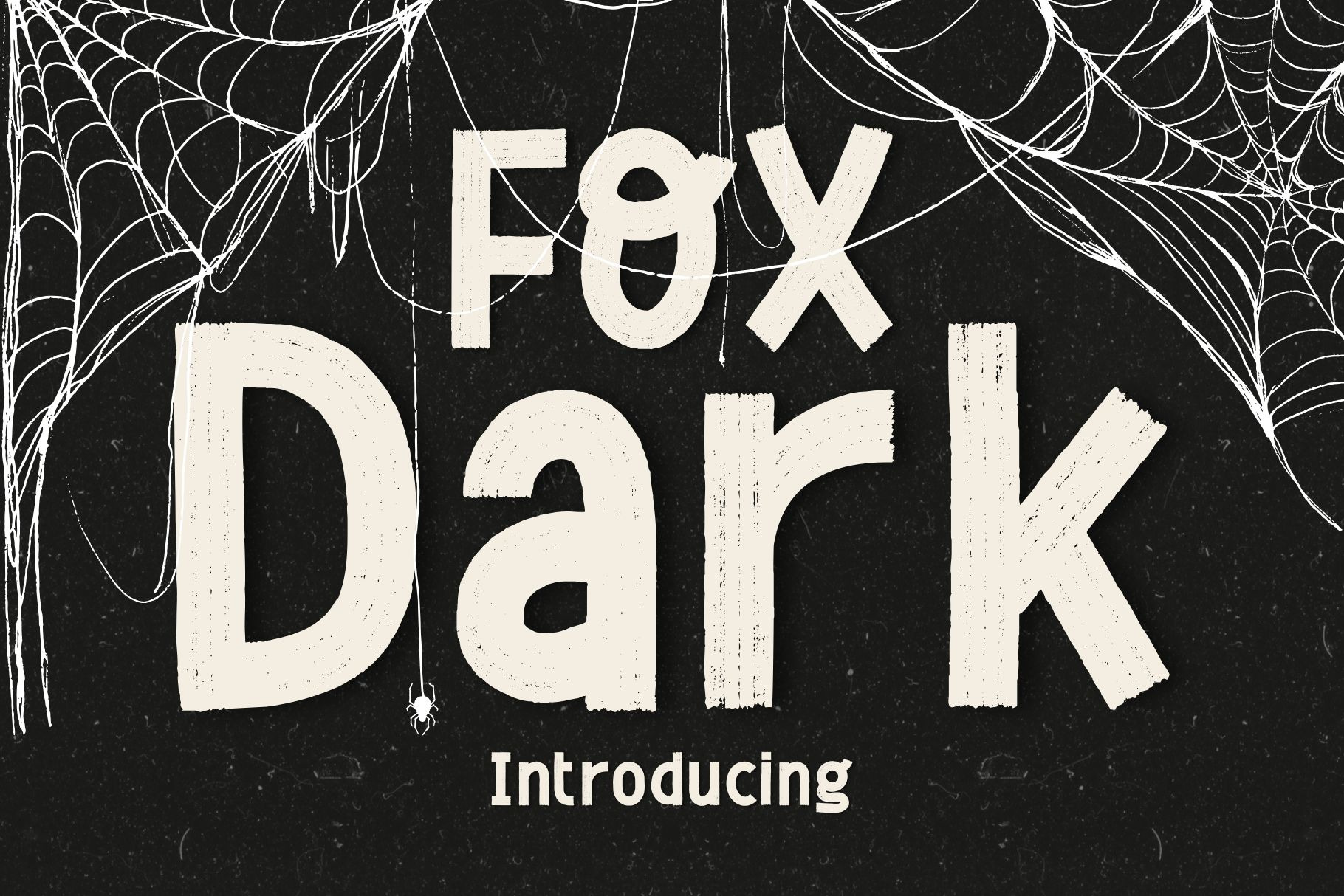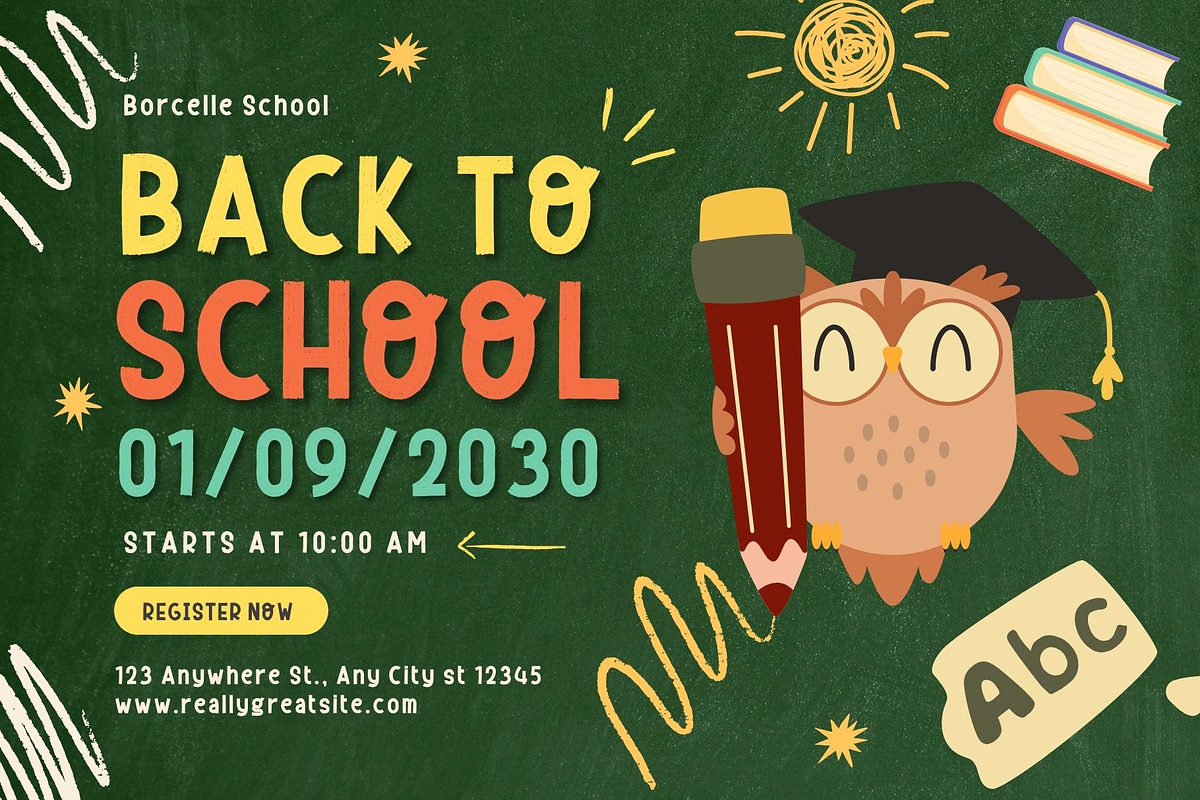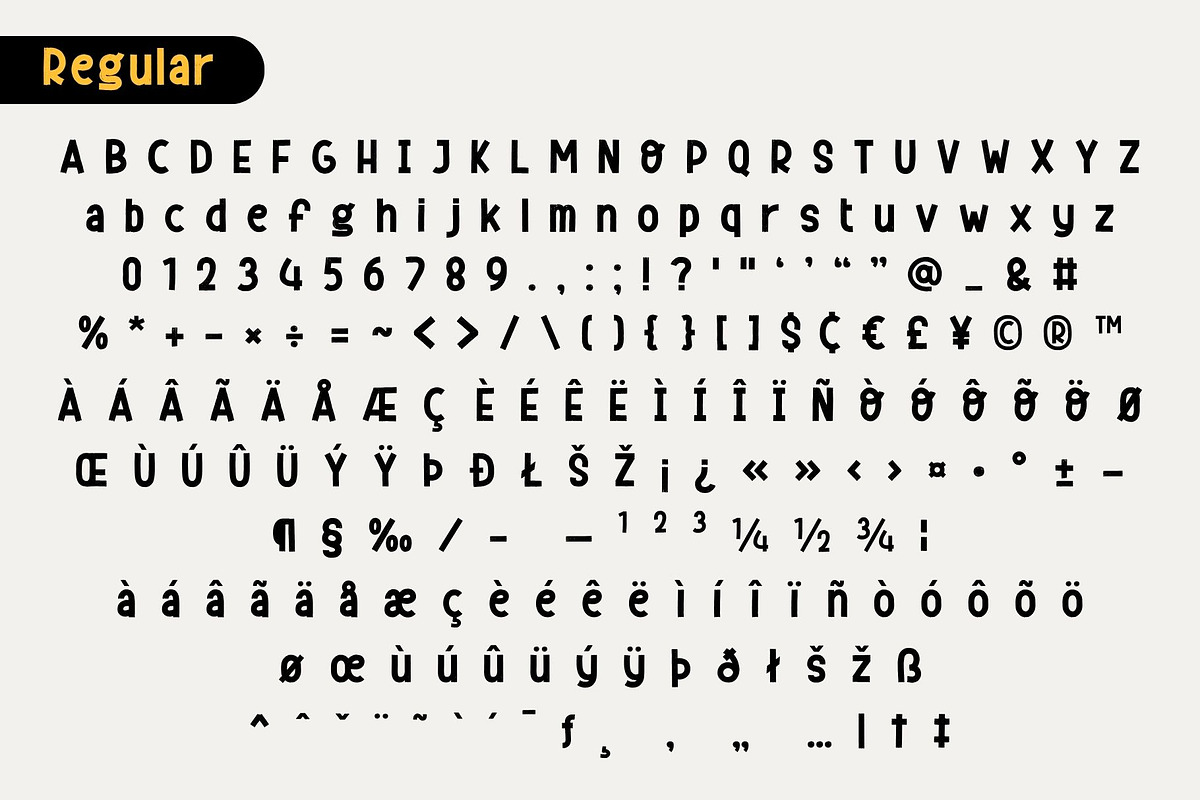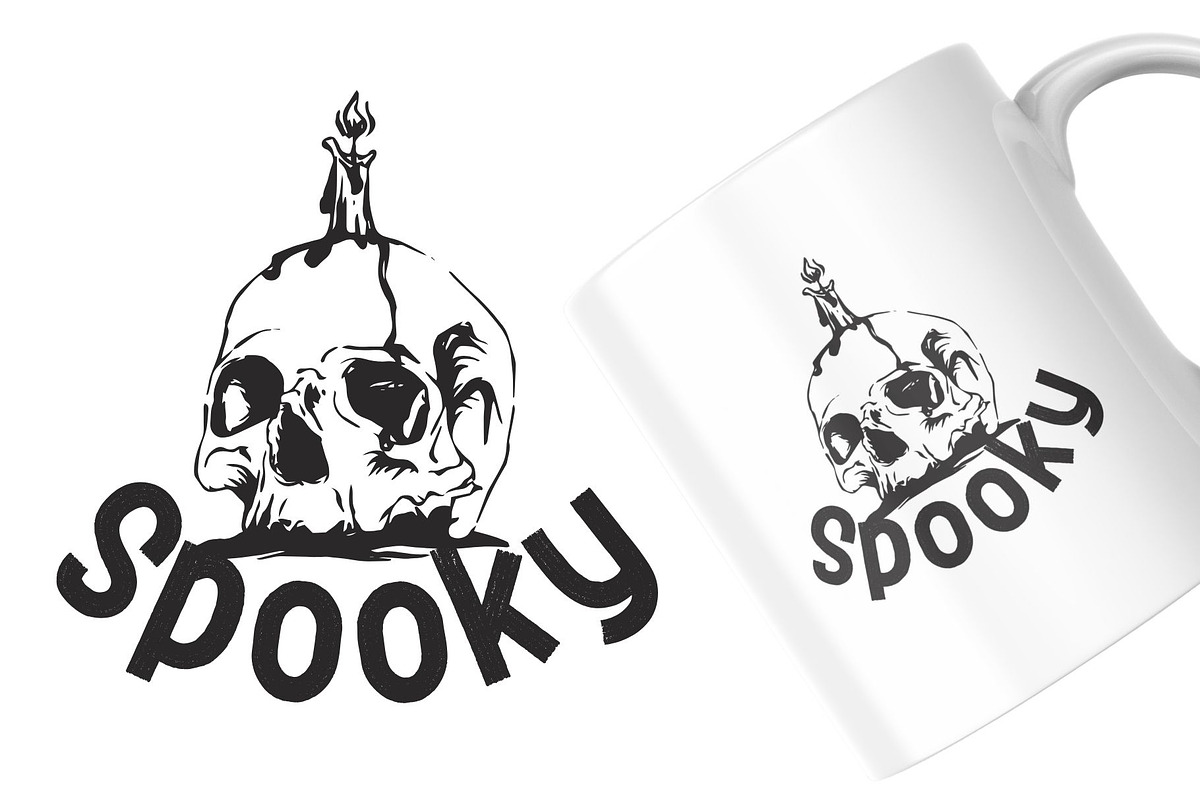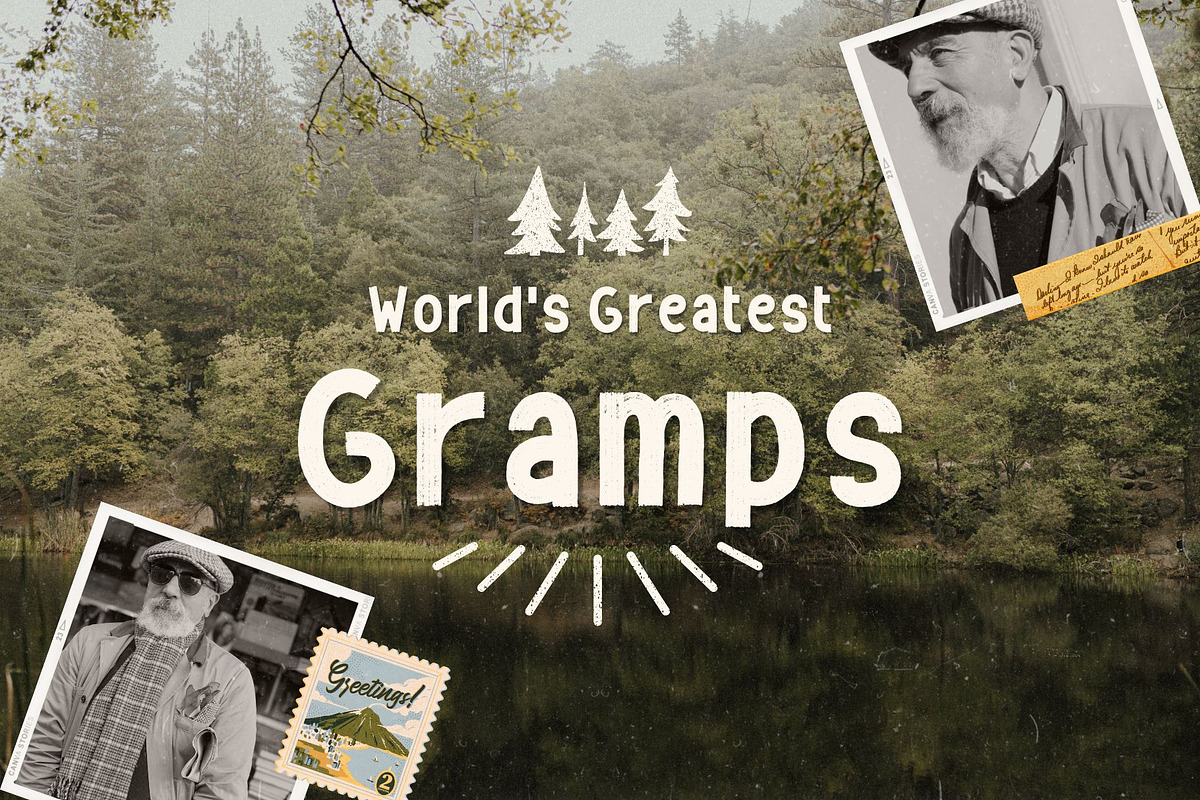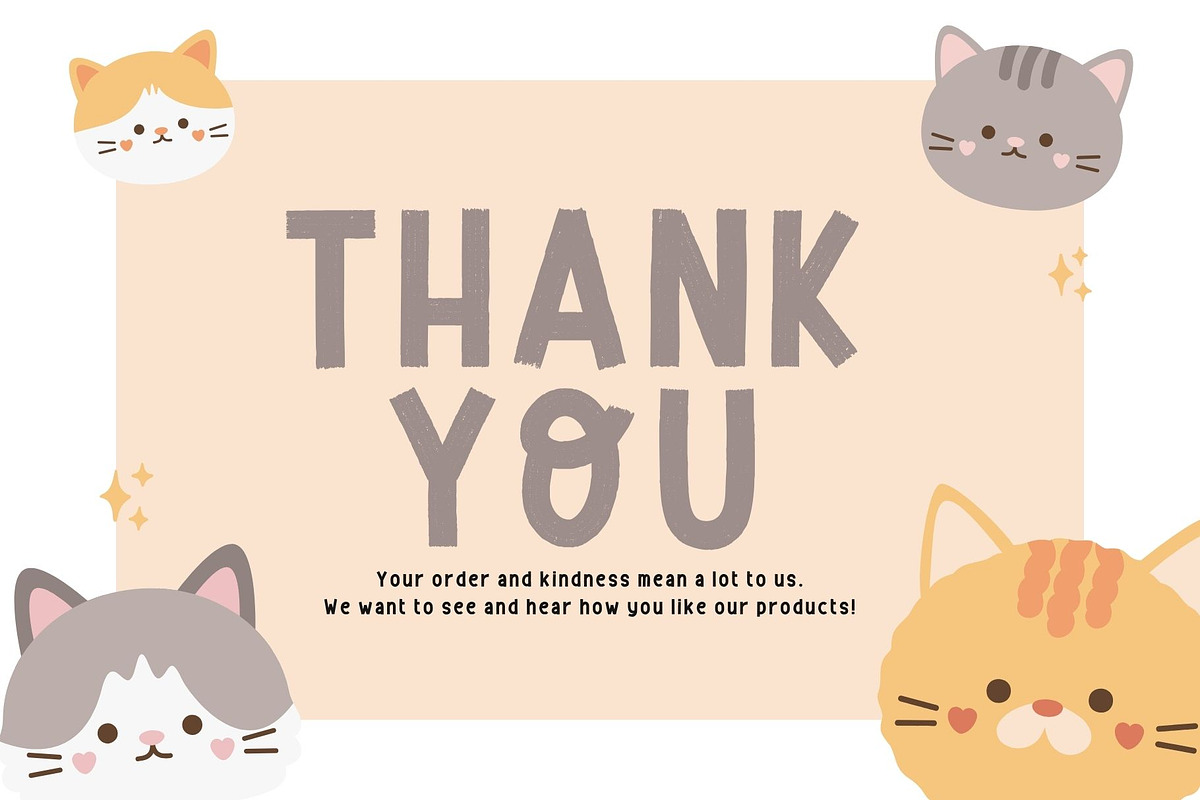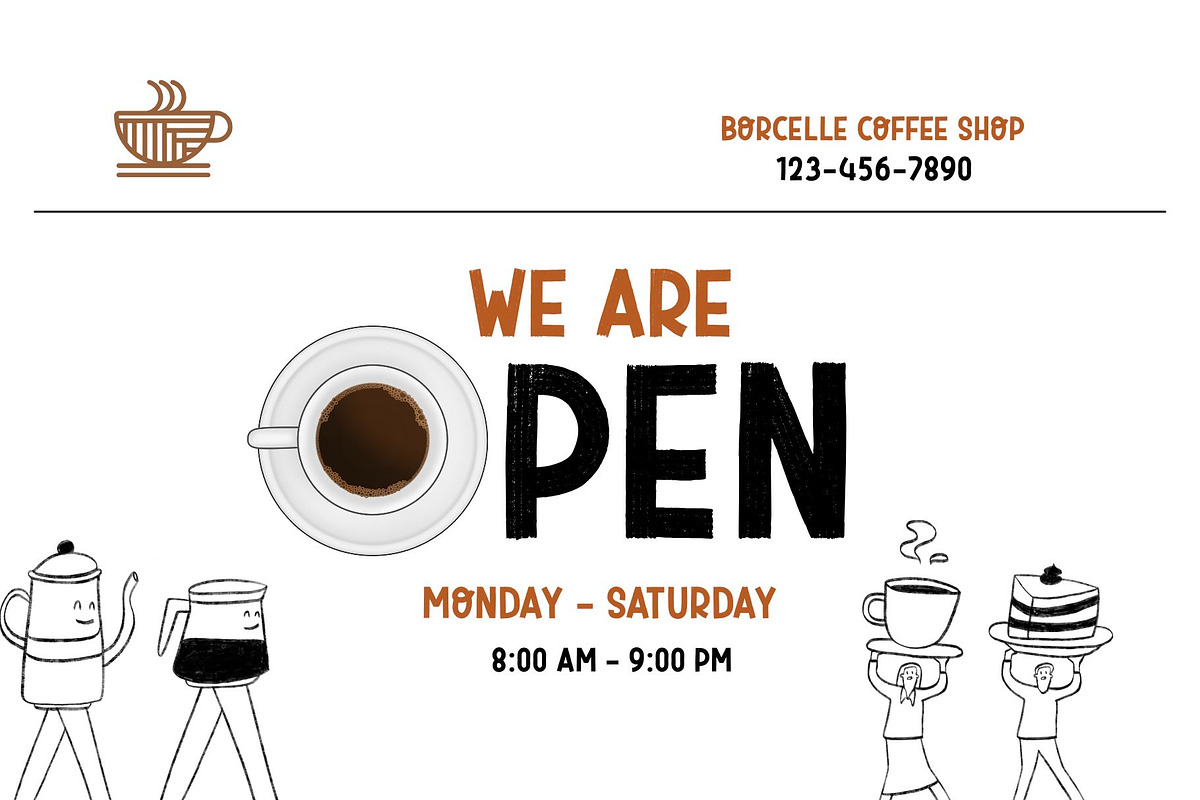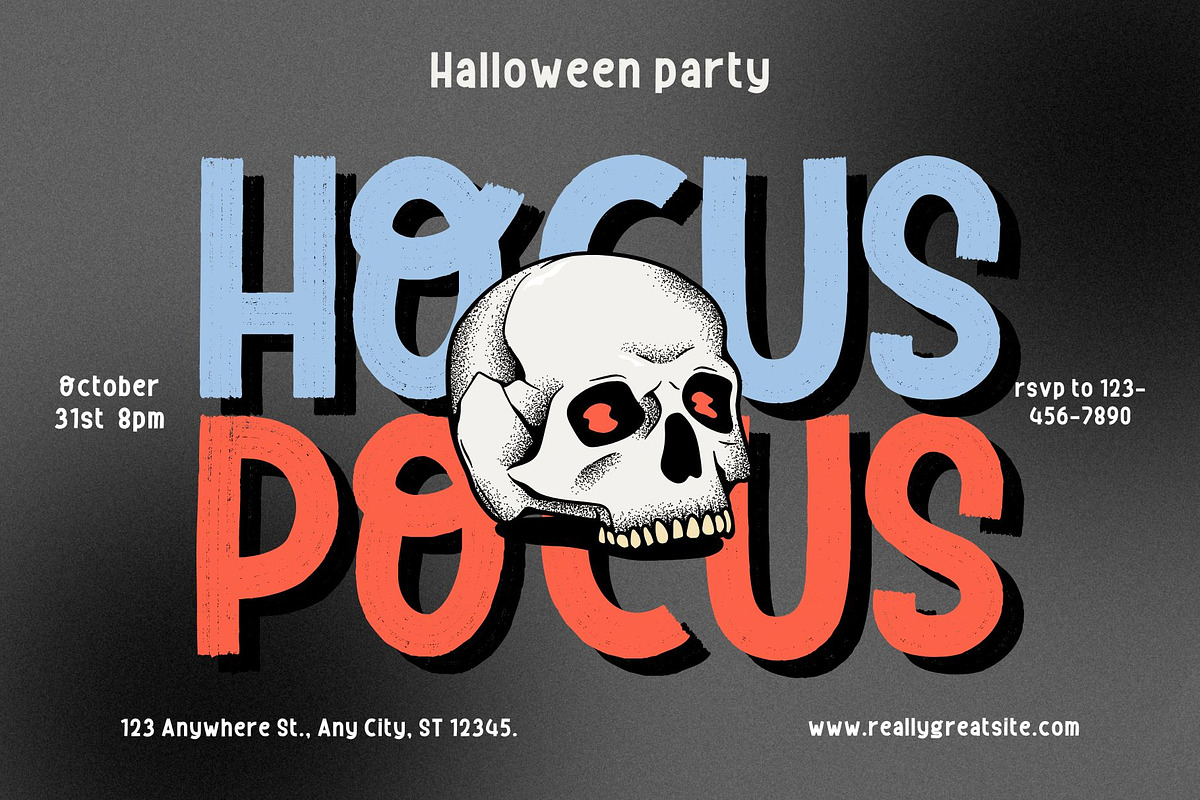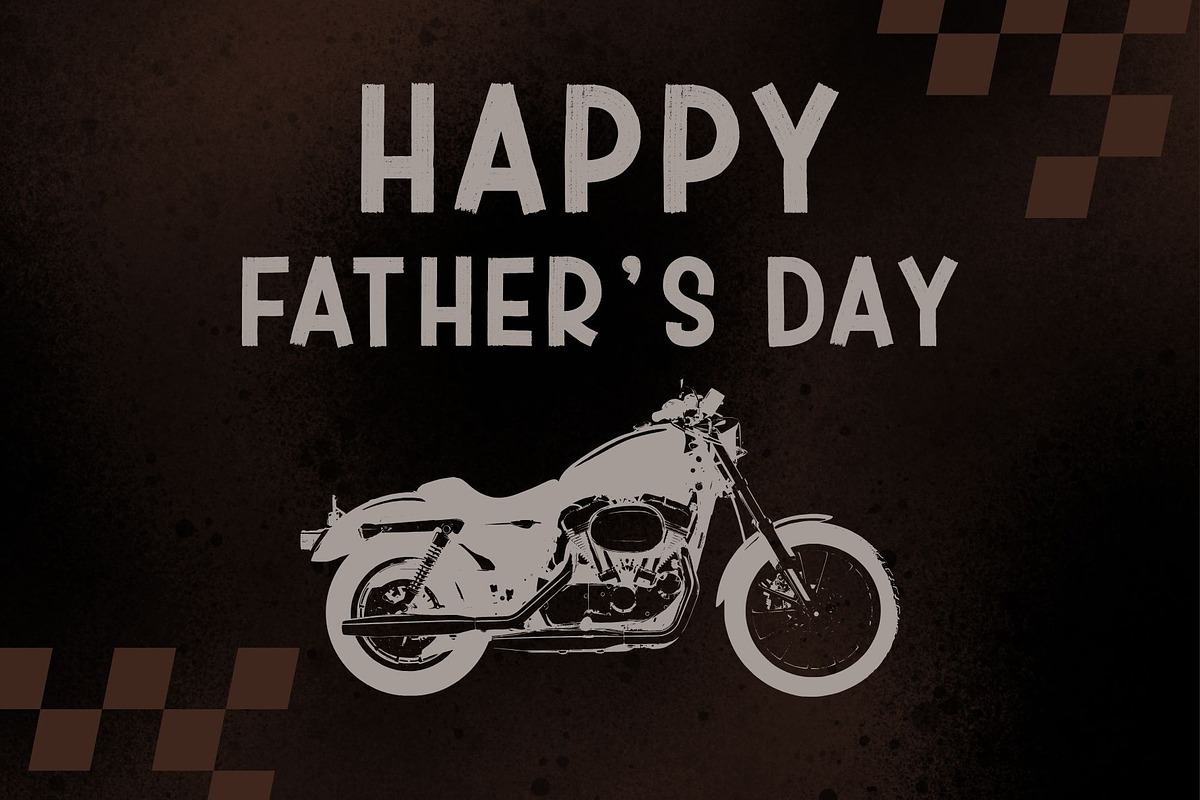
Fox Dark Font
Fox Dark is a bold, handcrafted display font with a playful spooky twist. Featuring rough, textured letterforms inspired by brush strokes, Fox Dark brings a fun and friendly Halloween vibe to your designs without feeling too scary. Perfect for Halloween invitations, posters, children’s books, product packaging, or social media graphics, this font balances a spooky atmosphere with a cute, approachable charm. Its irregular shapes and subtle grainy details make it stand out beautifully in both print and digital projects.